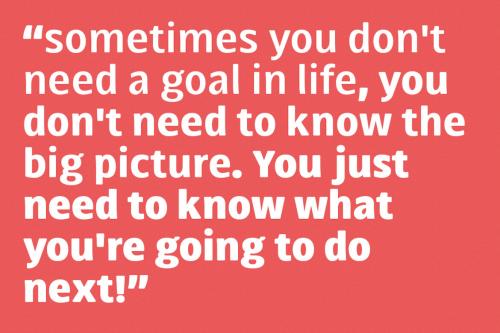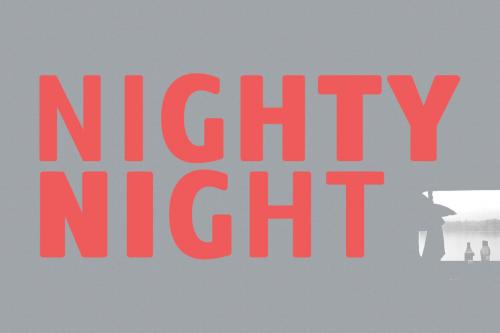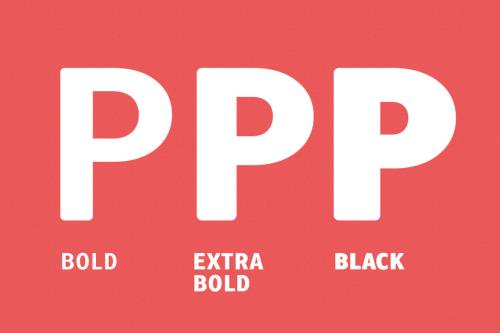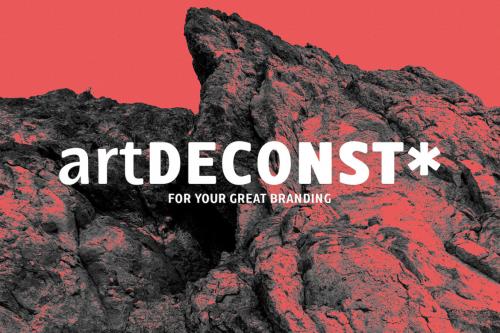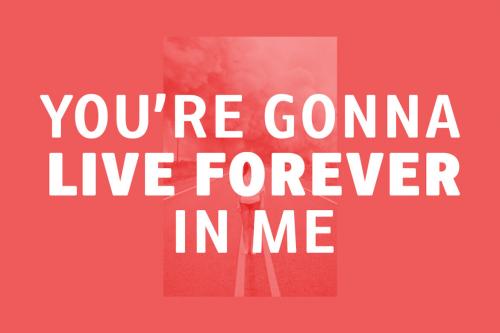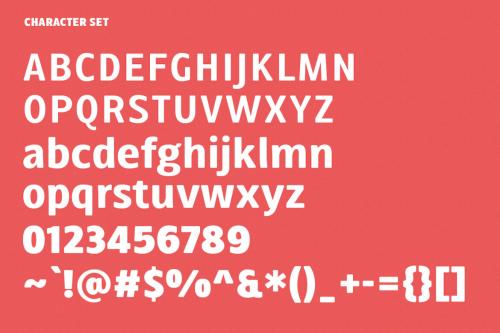
Migo is a modern sans display font. With three weight stroke, fun character with a bit of ligatures. To give you an extra creative work. Migo font support multilingual more than 100+ language. This font is good for logo design, Social media, Movie Titles, Books Titles, a short text even a long text letter and good for your secondary text font with sans or serif. Make a stunning work with Migo font.